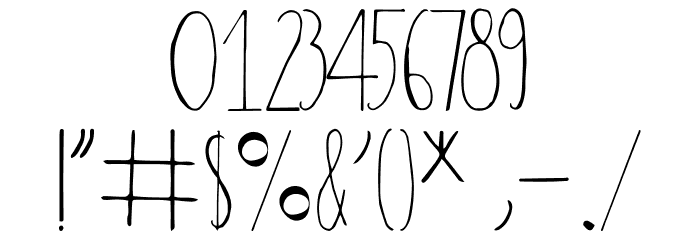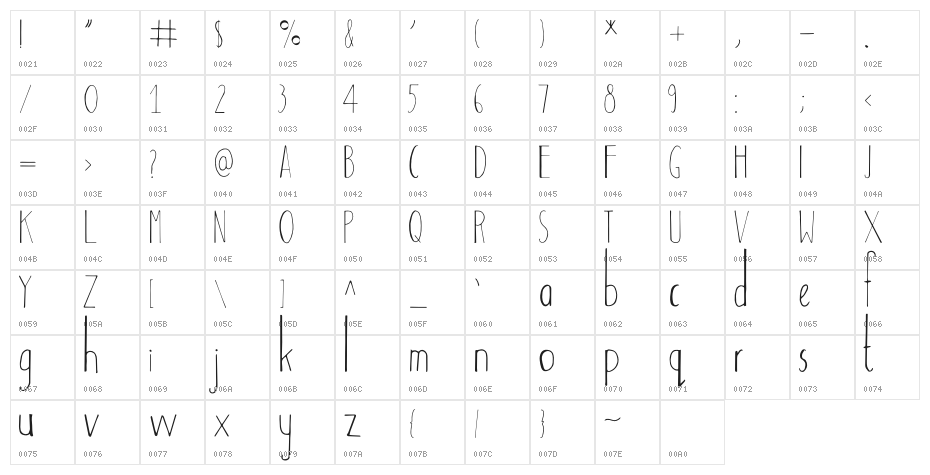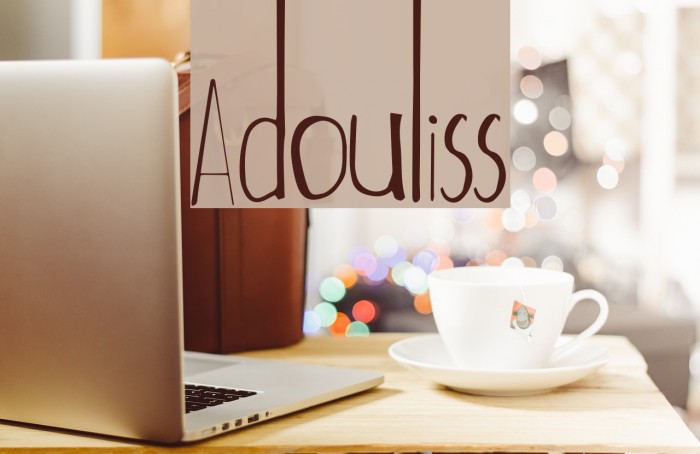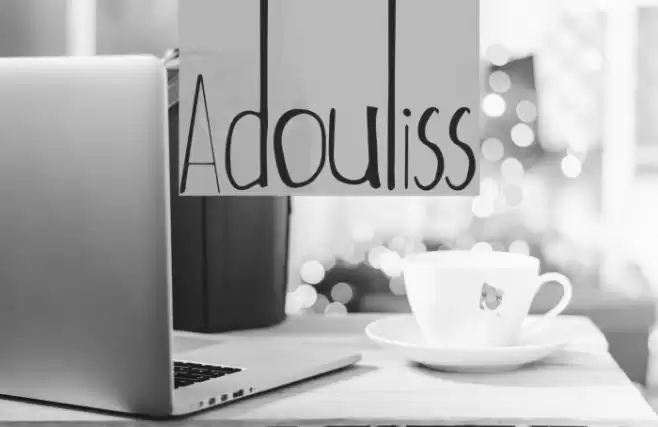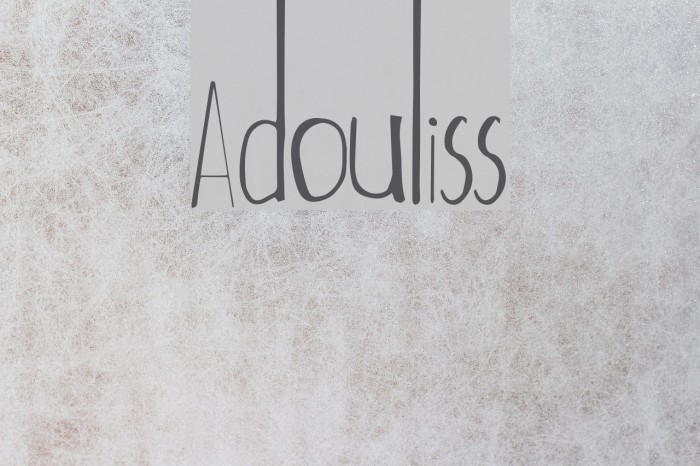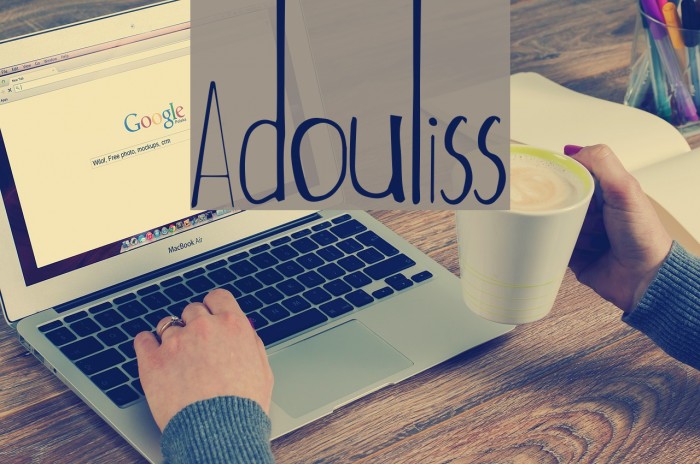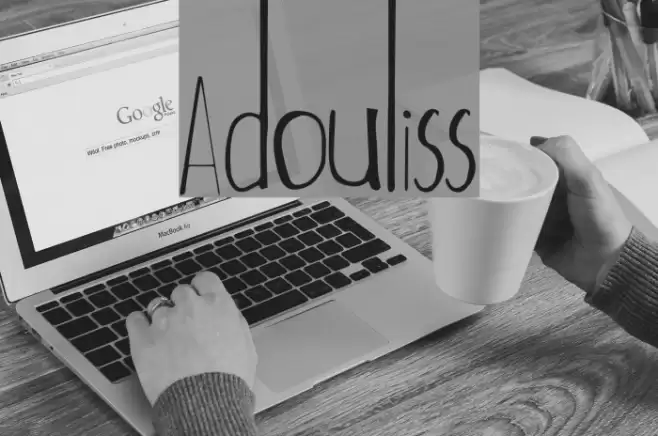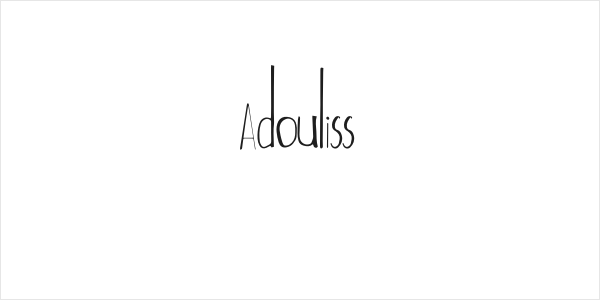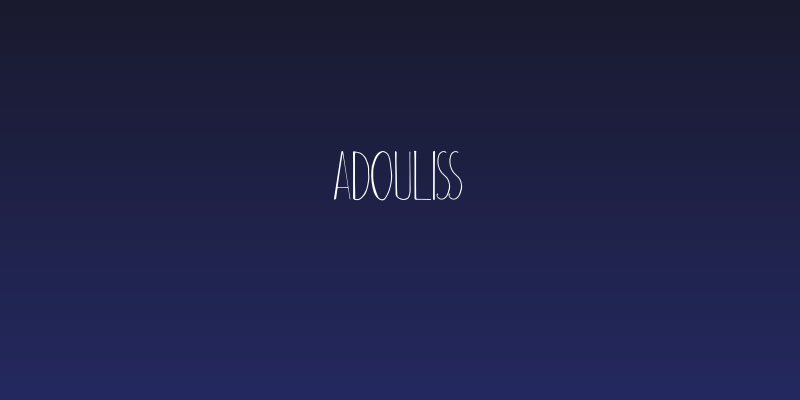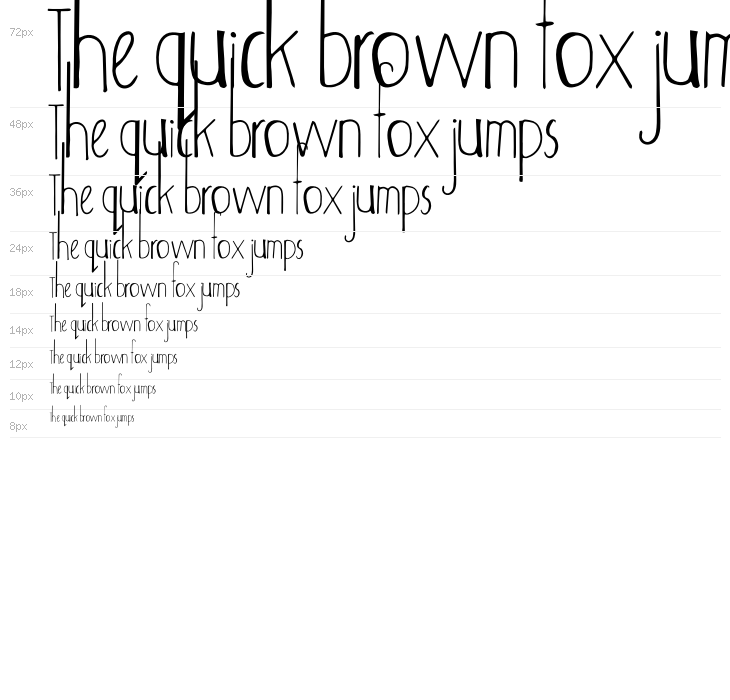
Adouliss Font
Adouliss Description
This font features a tall, slender design with elongated characters that convey a sense of elegance and modernity. The uppercase letters are particularly narrow, creating a striking and sophisticated appearance. The lowercase letters maintain a consistent height, contributing to a cohesive and balanced look. The numerals are similarly elongated, matching the overall aesthetic of the alphabet. Special characters are designed with the same thin strokes, ensuring uniformity across all elements. The font's minimalistic style makes it versatile for various design applications.
| Proposed Projects | Ideal for fashion magazines, luxury branding, modern art posters, and minimalist design projects. |